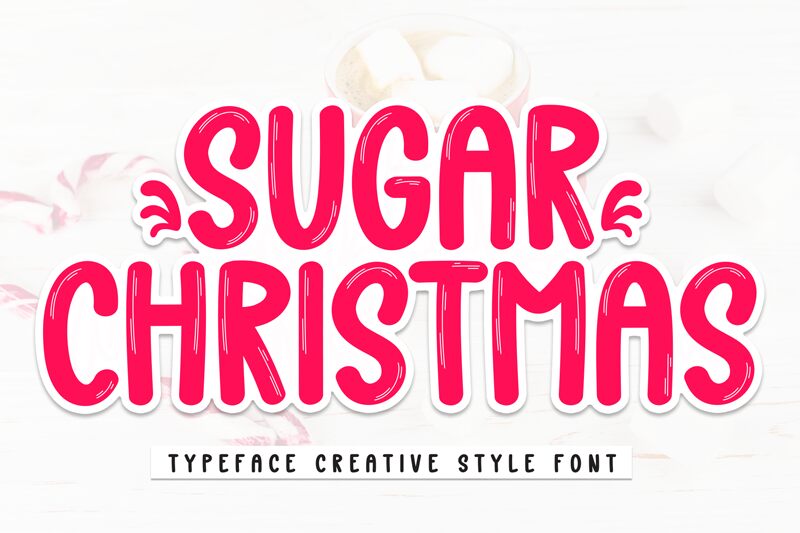
Sugar Christmas
Sugar Christmas font combines a hand-drawn style with modern elements for an energetic presence not easily replicated. The light condensed cartoon letters further help the font achieve a quirky look while holding on to a present-day vibe that can be used in endless projects.